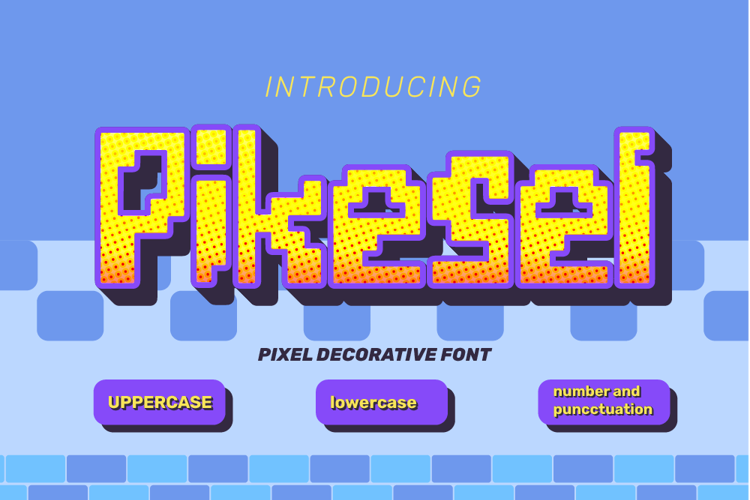
PIKESEL Font
Introducing Pikesel, a pixel-inspired decorative font that combines retro vibes with a modern twist. Perfect for digital projects, game designs, or any creative project that needs a bold and unique look. Pikesel includes uppercase, lowercase, numbers, and punctuation, giving you full flexibility in design.